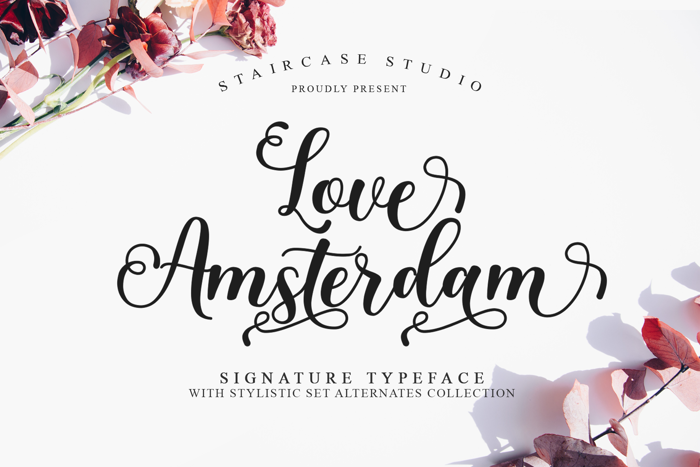
Love Amsterdam Font
Love Amsterdam SignatureTypeface. A collection of letters and numbers suitable your projects also great for Logotype, Branding Design, Logo Design, Digital Lettering Arts, T-Shirt/Apparel, Poster, Magazine, Signs, Advertising Design, and any design needs.